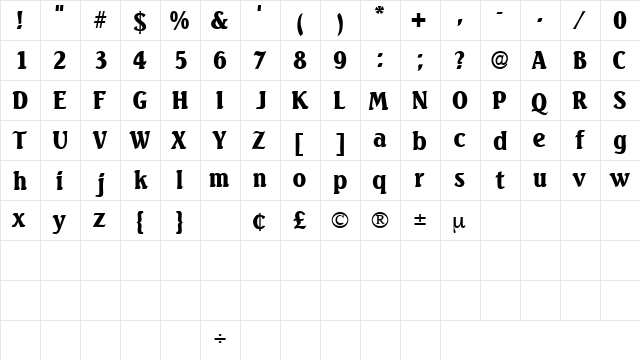
VarioDisplaySSK Regular
Design Context for VarioDisplaySSK Typeface
VarioDisplaySSK brings ornamental detail and strong personality to headlines and identities, where visual impact matters more than quiet functionality.
Font Pairing: Pair with a clean neutral sans-serif for body copy to let VarioDisplaySSK's character lead without overwhelming the composition.
Pro Tip: Treat VarioDisplaySSK as the centrepiece of your typographic hierarchy. One strong heading set in a decorative face can carry an entire layout.